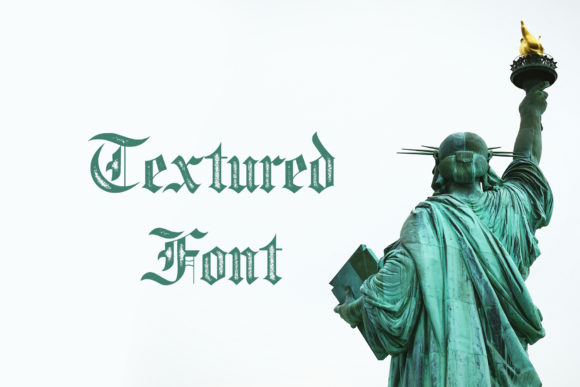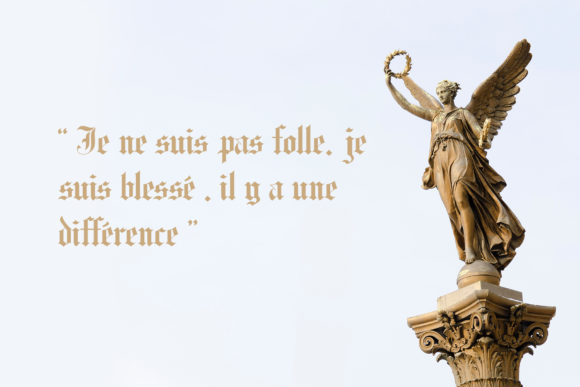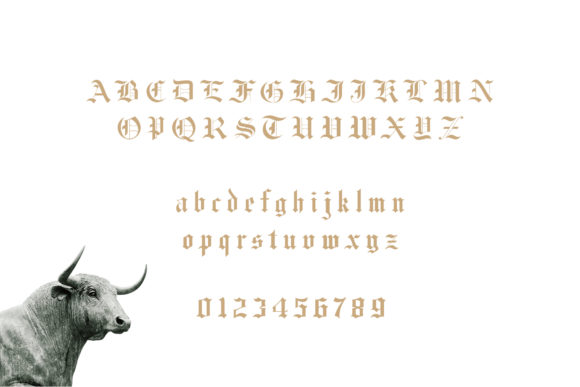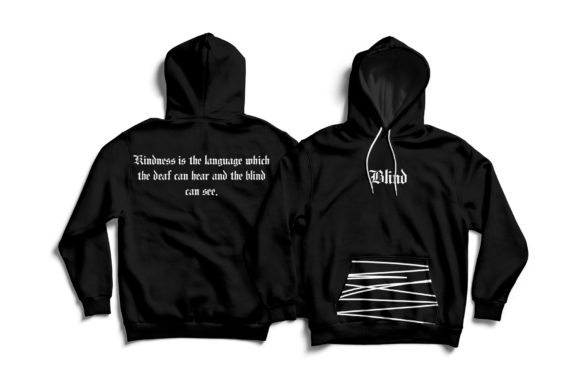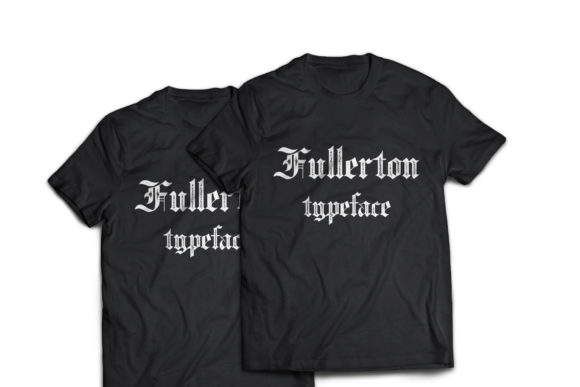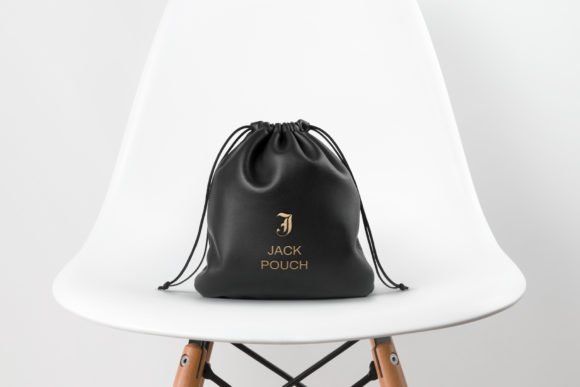
Discover the Power of Fullerton Font: A Striking Blackletter Typeface
In the world of typography, fonts play a crucial role in conveying messages, evoking emotions, and creating lasting impressions. For designers and crafters, finding the right font can make all the difference in their creative projects. If you’re on the hunt for a unique and striking typeface, look no further than the Fullerton Font. Inspired by the subtext of books, this blackletter font is perfect for logos, posters, magazines, books, and every other design that needs to stand out.
The Inspiration Behind Fullerton Font
The Fullerton Font draws its inspiration from the intricate and ornate subtext found in traditional books. Blackletter typefaces have a rich history, dating back to the Middle Ages, and have been used in various forms of printing, from medieval manuscripts to modern-day designs. The creators of Fullerton Font have skillfully captured the essence of this classic style, infusing it with a modern twist that makes it perfect for contemporary designs.
What Makes Fullerton Font Stand Out
So, what sets Fullerton Font apart from other typefaces? Here are a few key features that make it a standout choice for designers and crafters:
- Unique Style: Fullerton Font boasts a distinctive blackletter style that adds a touch of elegance and sophistication to any design.
- High Versatility: Whether you’re working on a logo, poster, magazine, book, or any other design project, Fullerton Font is an excellent choice.
- Excellent Legibility: Despite its ornate nature, Fullerton Font remains highly legible, making it perfect for body text and headlines.
- Attention-Grabbing: The striking appearance of Fullerton Font is sure to grab attention and leave a lasting impression on your audience.
Uses of Fullerton Font
With its versatility and unique style, Fullerton Font can be used in a wide range of design projects, including:
- Logos and Branding: Create a memorable brand identity with Fullerton Font, perfect for businesses, organizations, and individuals.
- Posters and Flyers: Add a touch of drama and flair to your posters and flyers with this striking blackletter font.
- Magazines and Books: Use Fullerton Font as a headline or body text font in your publications, adding a level of sophistication and elegance.
- Packaging and Labels: Make your products stand out on store shelves with eye-catching packaging and labels featuring Fullerton Font.
Tips for Using Fullerton Font Effectively
To get the most out of Fullerton Font, here are a few tips to keep in mind:
- Use it Sparingly: While Fullerton Font is attention-grabbing, it’s best used in moderation. Balance it with simpler fonts to create visual interest.
- Experiment with Colors: Try pairing Fullerton Font with different colors to create striking contrast and add depth to your designs.
- Play with Sizes: Use Fullerton Font in various sizes to create visual hierarchy and emphasize important information.
In conclusion, the Fullerton Font is a powerful and striking blackletter typeface that’s perfect for designers and crafters looking to add a touch of elegance and sophistication to their projects. With its unique style, high versatility, and attention-grabbing appearance, Fullerton Font is sure to make your designs stand out. Whether you’re working on a logo, poster, magazine, book, or any other design project, Fullerton Font is an excellent choice.